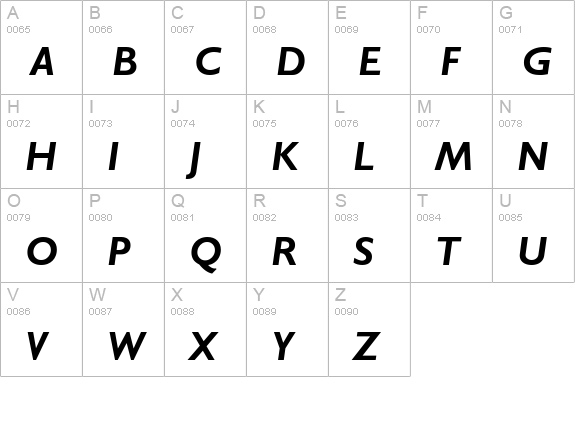
Garrison Sans is a modern and versatile typeface that exudes sophistication and style. With its clean lines and bold yet refined appearance, Garrison Sans BOLDITALIC is perfect for making a statement in your designs. The strong emphasis on both thickness and slant makes this font stand out and grab attention effortlessly. Designed for maximum impact, Garrison Sans BOLDITALIC is ideal for headlines, titles, posters, and other prominent text elements. Its bold and italic features work seamlessly together to create a sense of power and elegance. And the best part? Garrison Sans BOLDITALIC is available for free download at FontsMarket.com, making it easily accessible for all your design needs. Don't miss out on this opportunity to elevate your projects with this striking and impressive typeface.